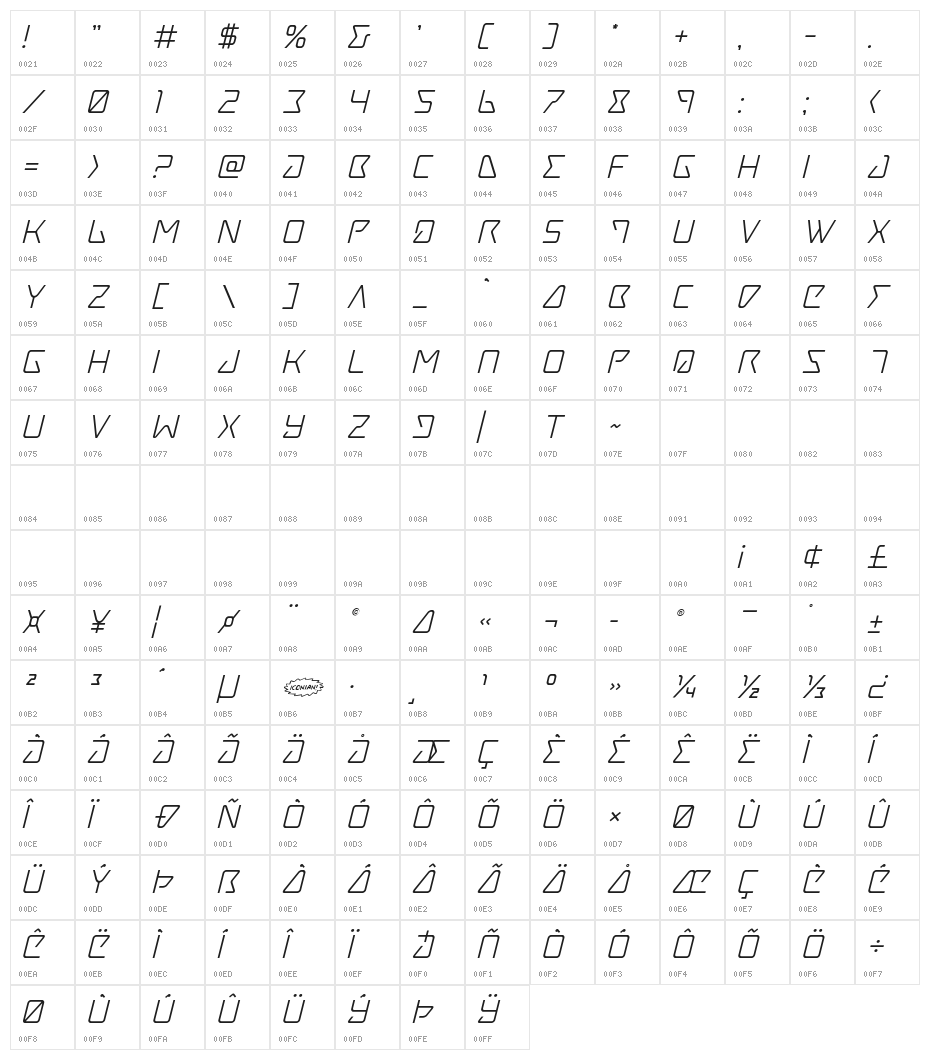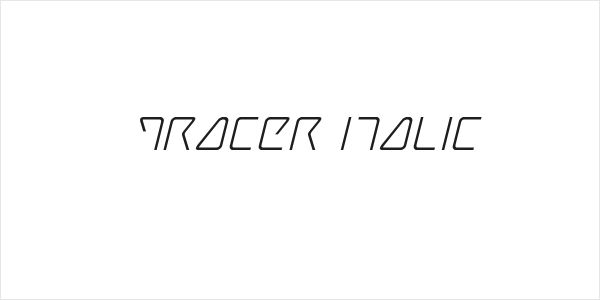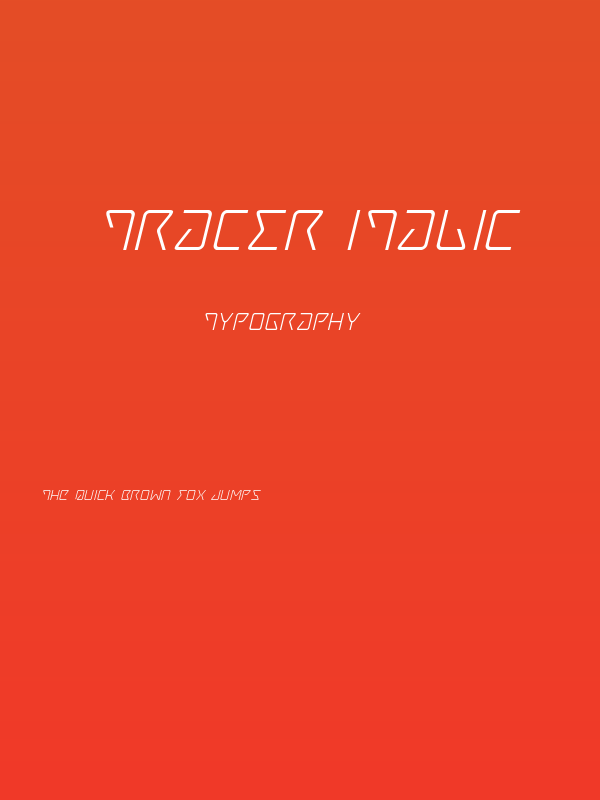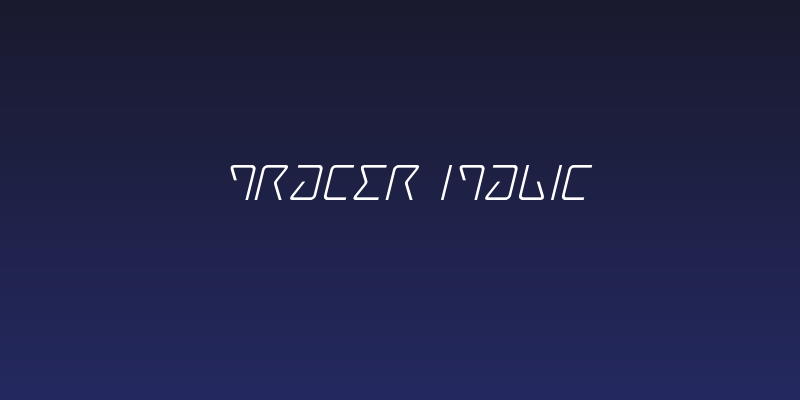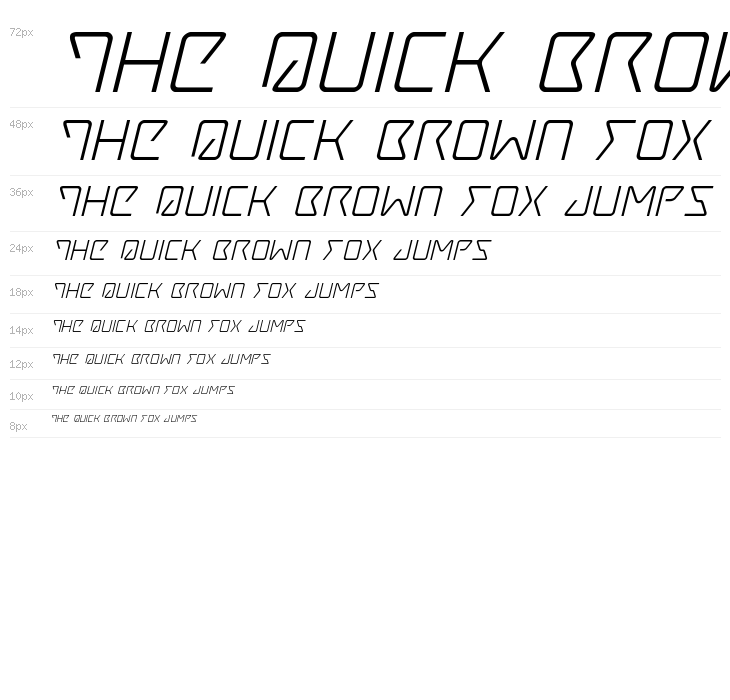
Tracer Italic Font
Tracer Italic Description
This font features a futuristic and angular design, characterized by sharp edges and a consistent slant that gives it a dynamic and forward-moving appearance. The uppercase and lowercase letters share a similar structure, maintaining uniformity across the alphabet. Numbers and special characters are designed with the same angular style, ensuring a cohesive look. The font's geometric nature and italicized form make it ideal for modern and tech-oriented projects. Its clean lines and distinct shapes provide excellent readability while maintaining a unique aesthetic.